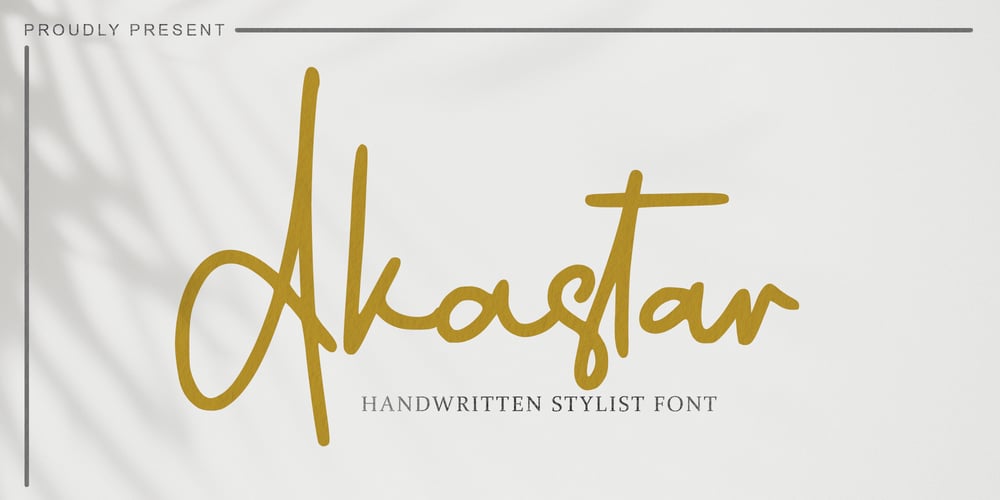
Akastar
Akastar font
Akastar Font Family was designed by Alif Ryan Zulfikar and published by Sakha Design. Akastar contains 2 styles and family package options. Akastar is a gorgeous handwritten font that impresses through its natural and elegant style. Add it to your most creative ideas, and notice how it transforms them into authentic pieces of art!